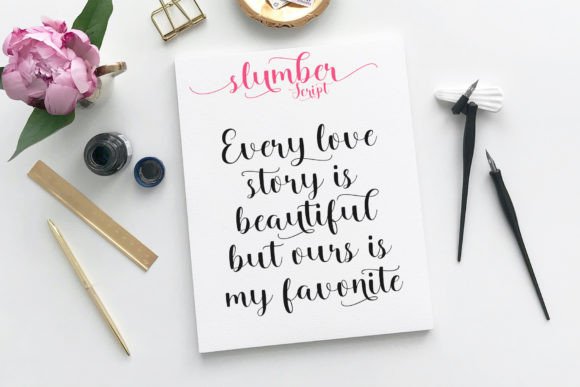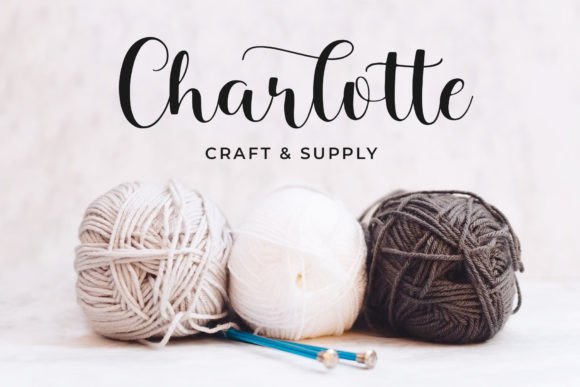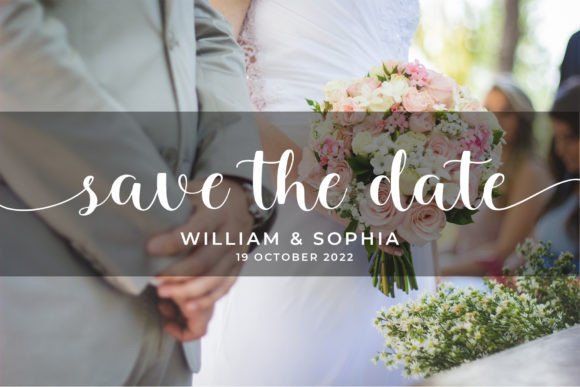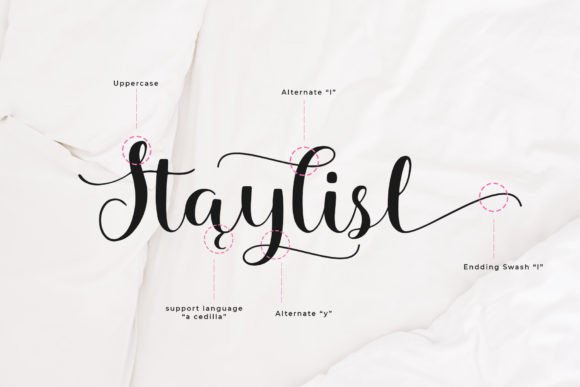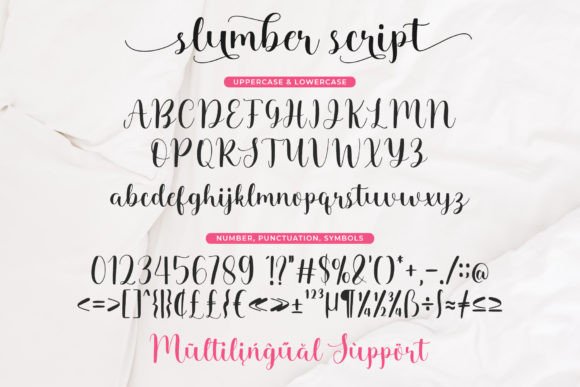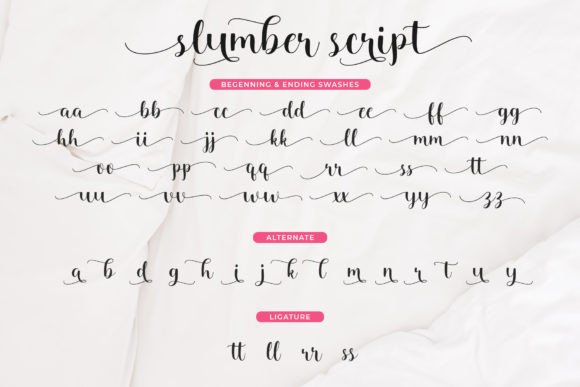
Introduction to Slumber Script Font
Remember that moment when you stumbled upon the perfect font for your creative project? The one that instantly elevates your design and makes it stand out from the crowd? For designers, finding the right font can be a game-changer, and Slumber Script Font is one such gem that’s sure to captivate your audience. This enchanting handwritten font is perfect for adding a touch of romance and whimsy to your next project.
Whether you’re designing greeting cards, creating beautiful headlines, or working on a wedding invitation, Slumber Script Font is an excellent choice. Its versatility and high-quality design make it a valuable resource for any designer looking to add a personal touch to their work. And the best part? You can download it for free, giving you the creative freedom to experiment with this stunning font in your next project.
With a transparent background and a range of applications, Slumber Script Font is a must-have design resource for anyone looking to elevate their creative project. In this article, we’ll delve deeper into the world of Slumber Script Font and explore its many uses, so you can unlock its full potential and take your designs to the next level.
Key Features of Slumber Script Font
- Unique, handwritten font style with a touch of elegance, perfect for creative projects and design resources.
- High-quality design with a transparent background, allowing for seamless integration into any creative project, whether digital or print.
- Perfect for use in various creative projects, such as invitations, greeting cards, and other design resources, where a unique and personalized touch is desired.
Honest Review: Slumber Script Font
I recently stumbled upon the Slumber Script Font, and I must say it’s been a great addition to my design resource library. The free download was a pleasant surprise, and I was eager to see how it would perform in my creative project.
What works well: ✨ The font’s elegant, cursive design makes it perfect for titles, headings, and other text elements that need a touch of sophistication. The high quality of the font ensures it looks great on both transparent backgrounds and solid colors.
However, there are a few limitations to consider: ⚠️ The font may not be suitable for body text, as it can be quite ornate and difficult to read in larger quantities. Additionally, the font’s style may not be suitable for all types of projects, such as technical or instructional content.
Overall, I’m quite impressed with the Slumber Script Font. It’s a great resource for designers looking to add some flair to their creative project. While it may have some limitations, its unique style and high quality make it a valuable addition to any design library.
Key features:
- High quality font
- Elegant, cursive design
- Suitable for titles, headings, and other decorative text
Tips for Getting the Most Out of Slumber Script Font
For a high-quality design, use the Slumber Script Font with a transparent background to create a beautiful and creative project. Experiment with different font sizes and colors to add visual interest to your design. You can also use the font in combination with other design elements to create a unique and eye-catching design.
The Slumber Script Font is a versatile design resource that can be used in a variety of creative projects, including invitations, posters, and social media graphics. Its elegant and sophisticated design makes it perfect for weddings, baby showers, and other special occasions.
Does the Slumber Script Font come with a transparent background?
Yes, the Slumber Script Font typically includes a transparent background, making it easy to layer over images or other design elements in your creative project. This feature also allows for seamless integration with other design resources and high-quality graphics.